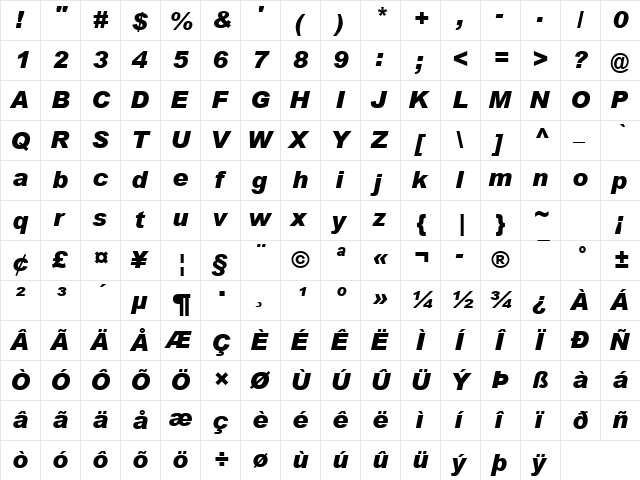
Arial Black Italic
| Foundry | Monotype Typography |
| Designer | Robin Nicholas, Patricia Saunders |
Design Context for Arial Black Typeface
Arial Black offers clean, dependable letterforms without strong stylistic allegiance, making it a practical choice for designers who need flexibility. The dynamic lean of this cut emphasises speed and emphasis in any layout.
Pro Tip: Use Arial Black for emphasis, pull quotes, and subheadings where its slanted energy can add rhythm to the layout.